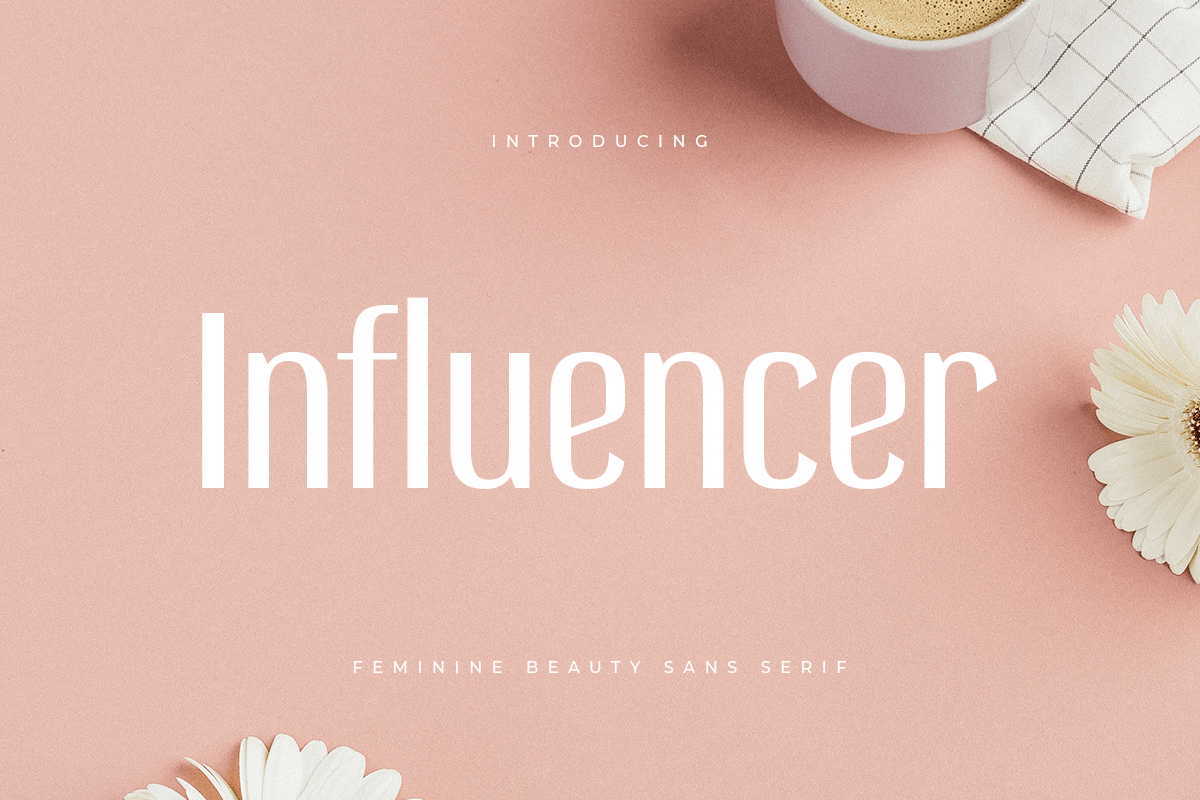
Influencer
-Feminine Beauty Sans Serif
Influencer is a Modern Feminine Beauty Sans Serif Font
A new Sans Serif font that we created special for logo and branding needs, with extended shape that will add your brand value. It so nice to leverage designer or product owner that need solutions to make their design look more classy and stunning. And specially for Influencer font, We prepared any characters to help you create any creative things specially for logotype, Poster, Social Media Post or wordmark.